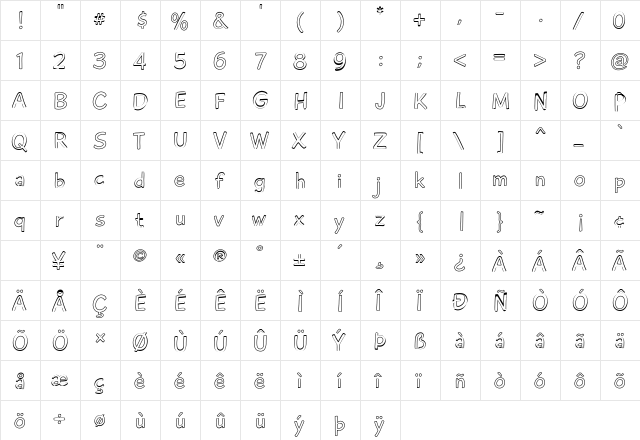
PlaytimeWithHotToddies3D Regular
Design Context for PlaytimeWithHotToddies3D Typeface
PlaytimeWithHotToddies3D is a composed and adaptable typeface that performs quietly and consistently across a wide range of design contexts.